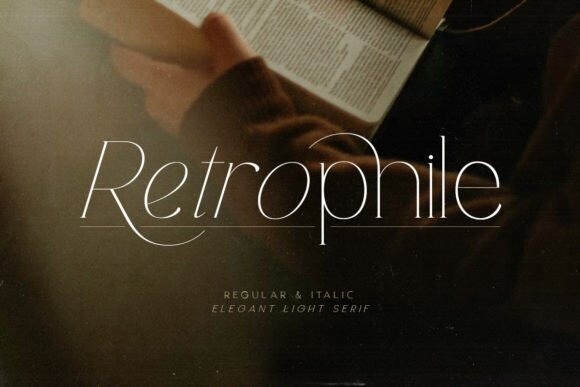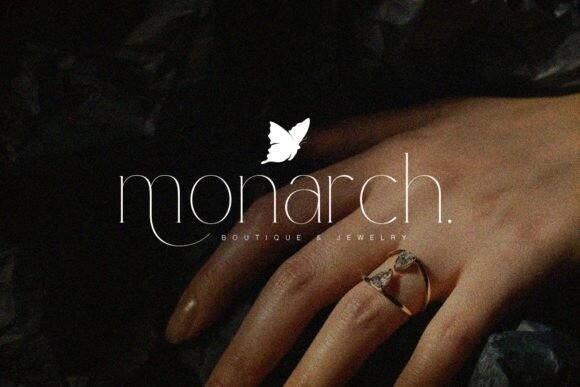
Retrophile Font
Retrophile is an elegant and light serif font. With a minimalist and clean look, this font is suitable for feminine, chic designs. This font is PUA encoded which means you can access all the glyphs and ligatures with ease!